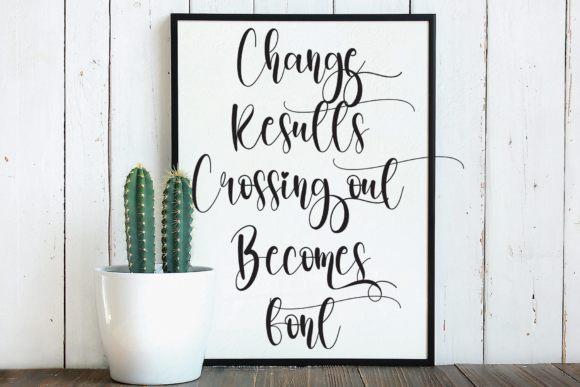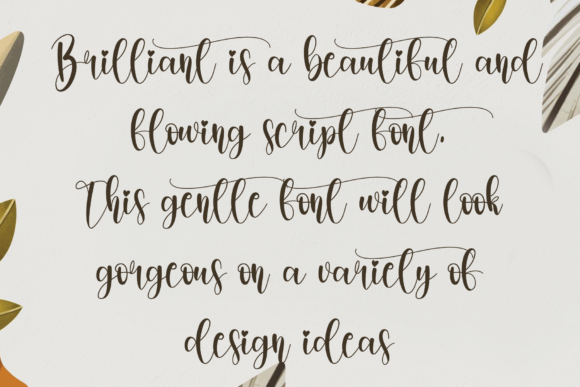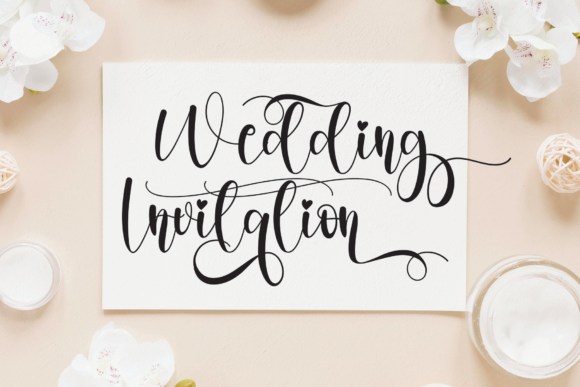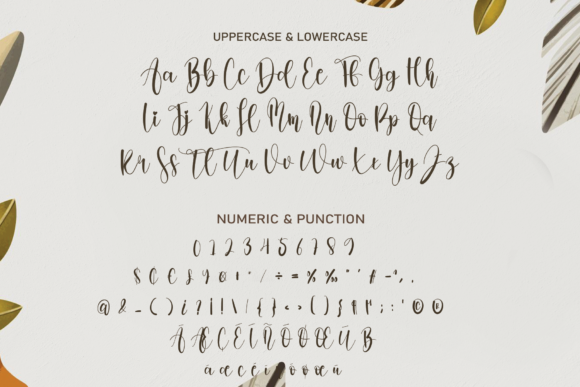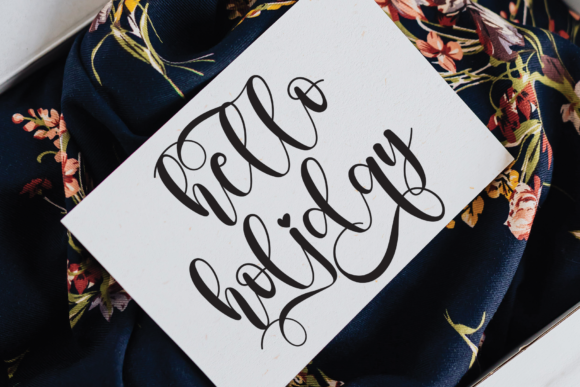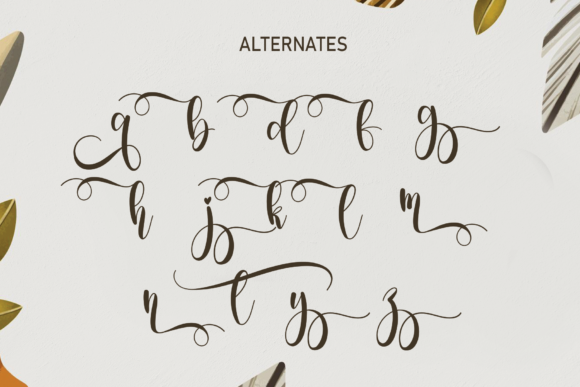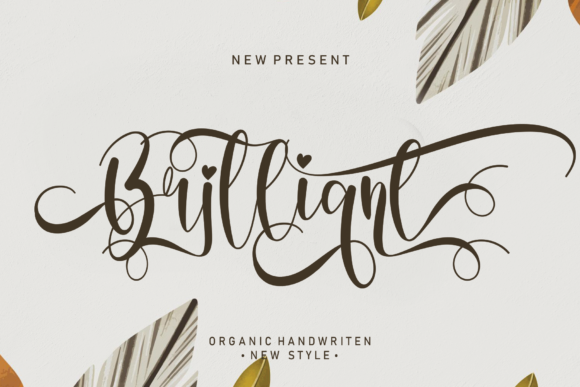
Introducing Brilliant Font: Elevate Your Designs with Luxurious Calligraphy
Are you looking for a font that adds a touch of romance and sophistication to your design projects? Look no further than Brilliant Font, a dazzling calligraphy typeface that is sure to make your designs shine. With its unique and elegant characters that dance along the baseline, Brilliant Font is the perfect choice for designers and crafters who want to add a luxury spark to their work.
What Makes Brilliant Font So Special?
Brilliant Font is a romantic and elegant calligraphy typeface that is designed to add a touch of sophistication to any design project. Its unique characters are carefully crafted to dance along the baseline, creating a beautiful and fluid look that is sure to impress. Whether you’re working on a wedding invitation, a logo, or a branding project, Brilliant Font is the perfect choice for adding a touch of luxury and elegance.
Brilliant Font is perfect for designers and crafters who want to add a touch of luxury and elegance to their work. Whether you’re working on a commercial project or a personal craft project, Brilliant Font is the perfect choice for adding a touch of sophistication and style. With its unique and elegant characters, Brilliant Font is sure to make your designs stand out from the crowd.
Use Brilliant Font for a Variety of Projects
Brilliant Font is versatile and can be used for a wide range of projects, including:
- Logos and branding projects
- Signs and displays
- Art and craft projects
Tips for Using Brilliant Font
Here are a few tips for using Brilliant Font in your designs:
- Use Brilliant Font as a headline font to add a touch of luxury and elegance to your designs.
- Pair Brilliant Font with a simple sans-serif font for a beautiful contrast.
- Use the glyphs and ligatures to add unique and creative touches to your designs.
In conclusion, Brilliant Font is a romantic and dazzling calligraphy typeface that is sure to add a luxury spark to any design project. With its unique and elegant characters, PUA encoding, and versatility, Brilliant Font is the perfect choice for designers and crafters who want to add a touch of sophistication and style to their work. Whether you’re working on a commercial project or a personal craft project, Brilliant Font is sure to make your designs shine.